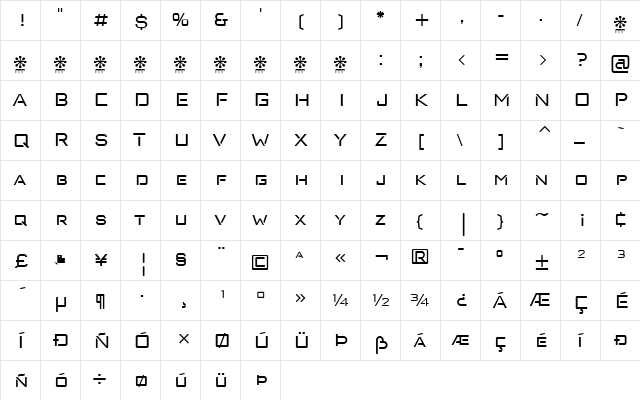
neo latina Regular Font Preview
neo latina Regular
neo latina Regular Font Details
| Foundry | deFharo |
| Designer | Fernando Haro |
Design Context for neo latina Typeface
neo latina takes a measured approach to typography — its balanced proportions and neutral character make it a reliable workhorse for both digital and print work.